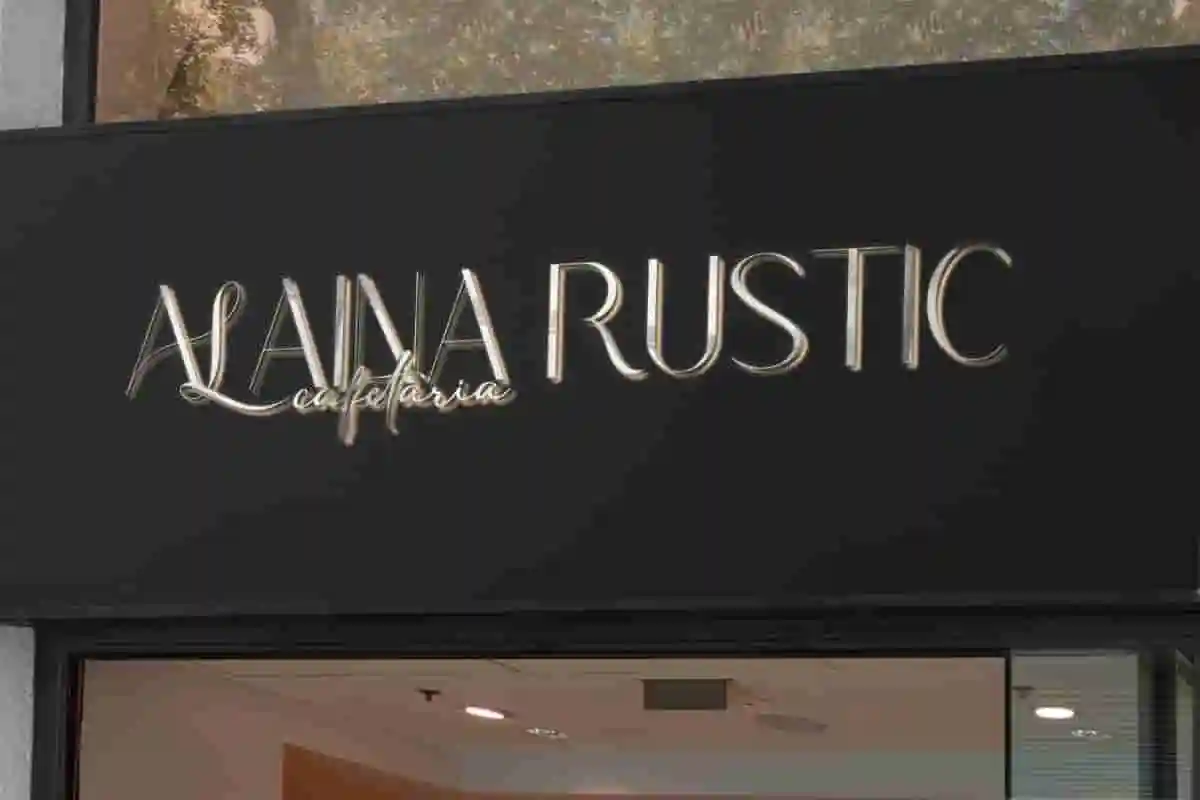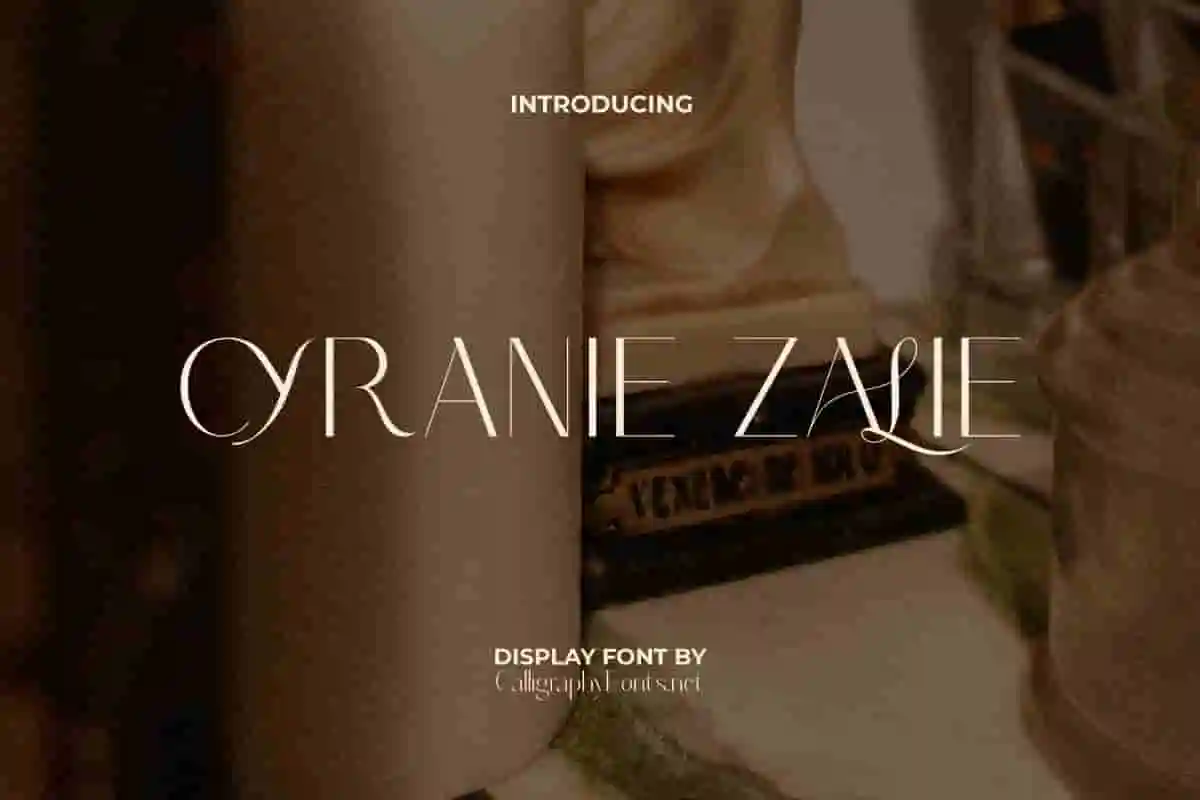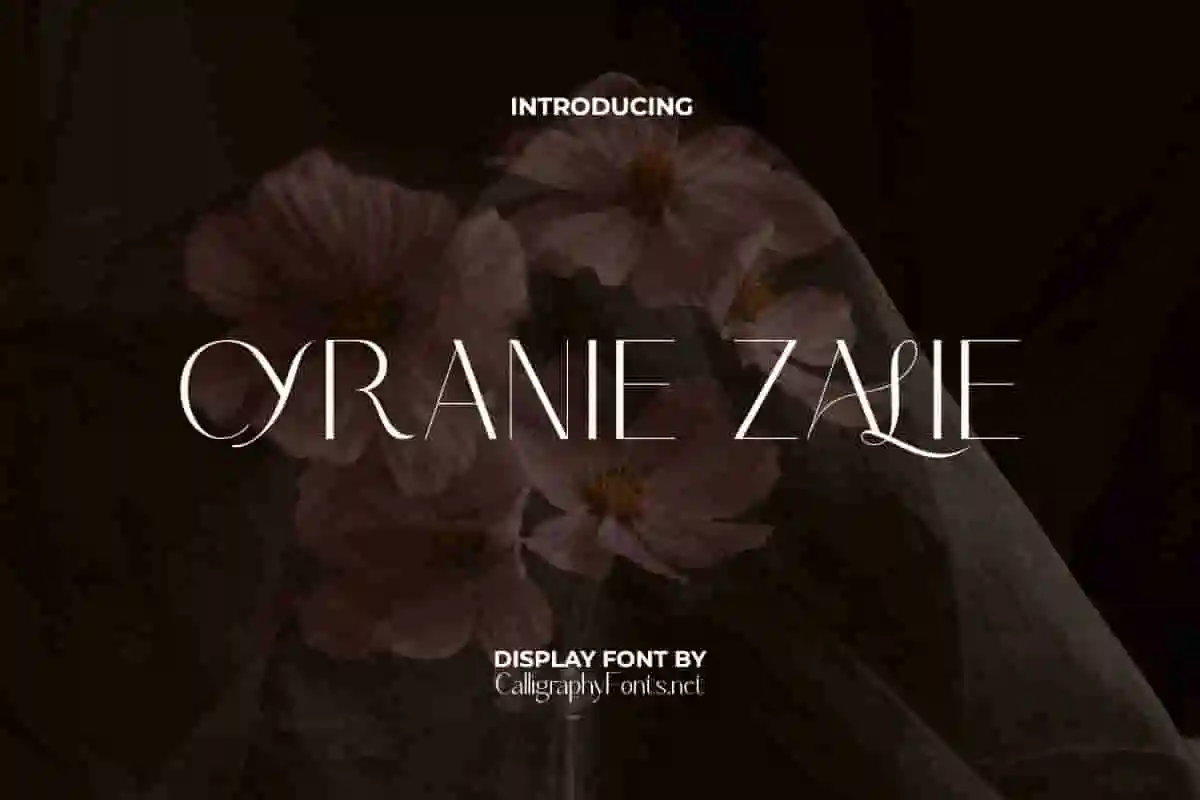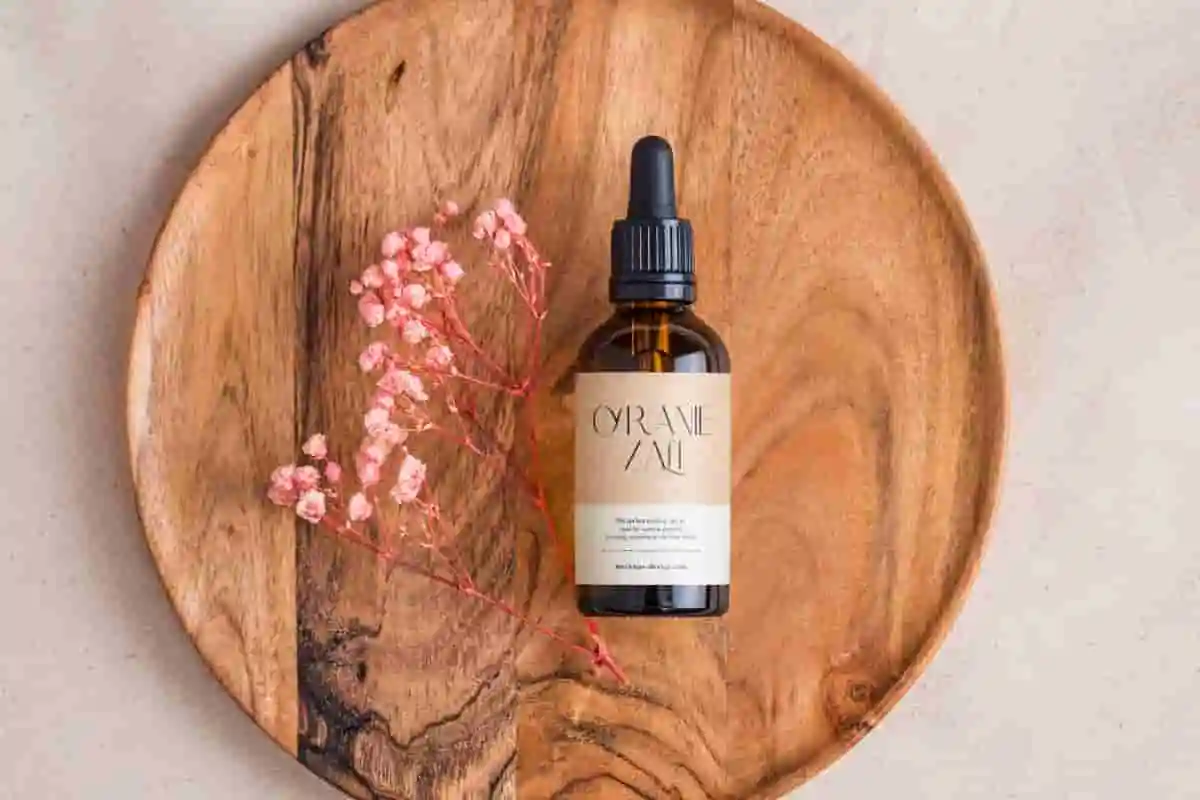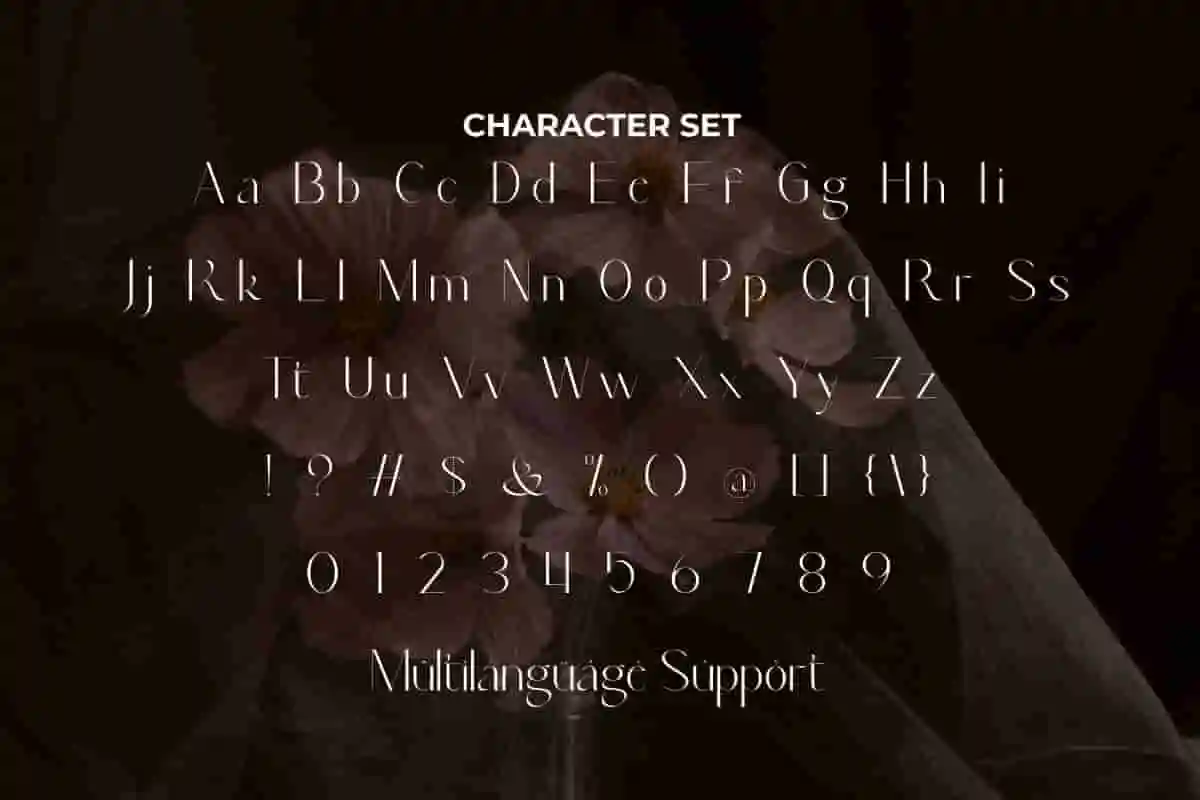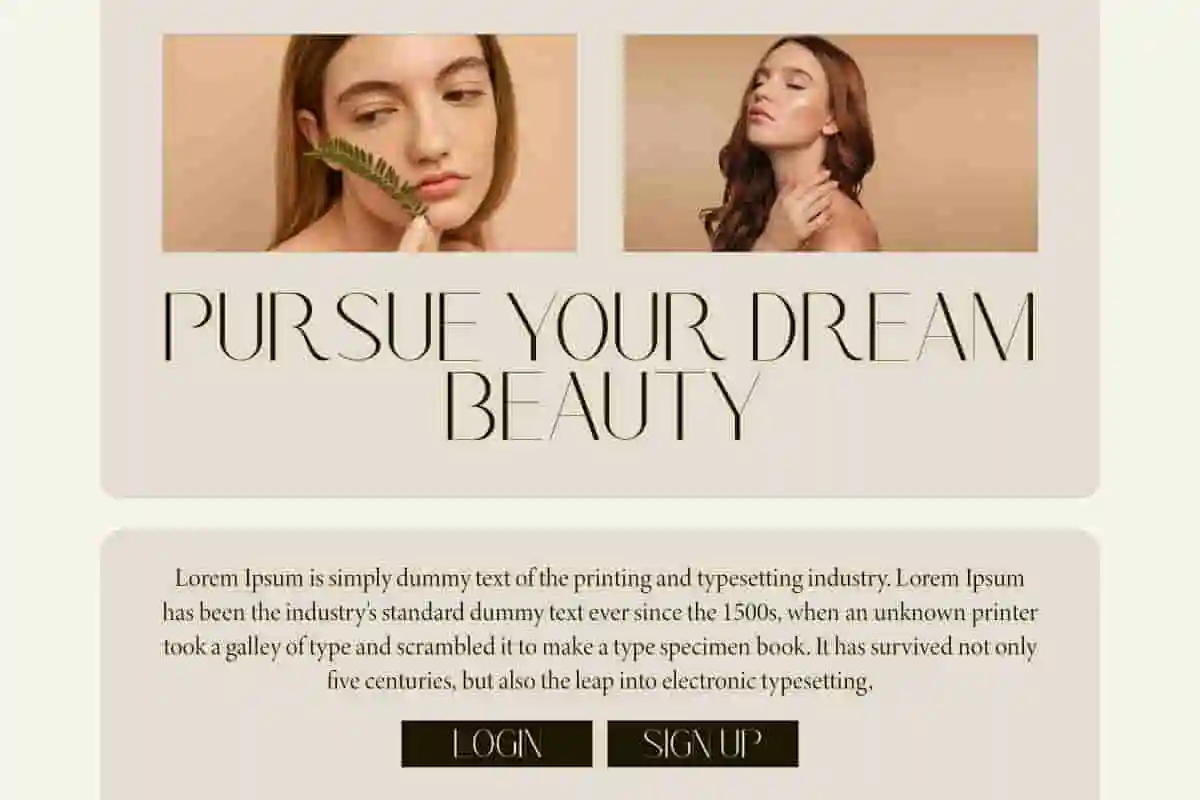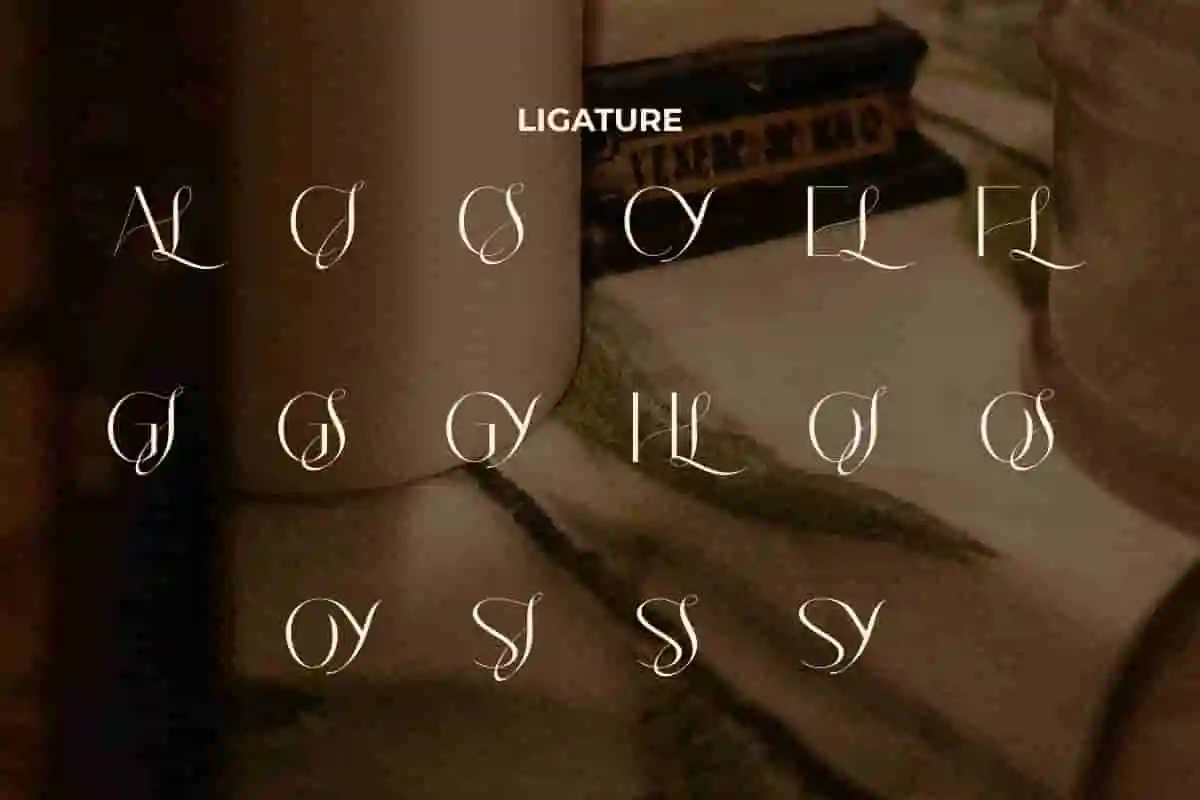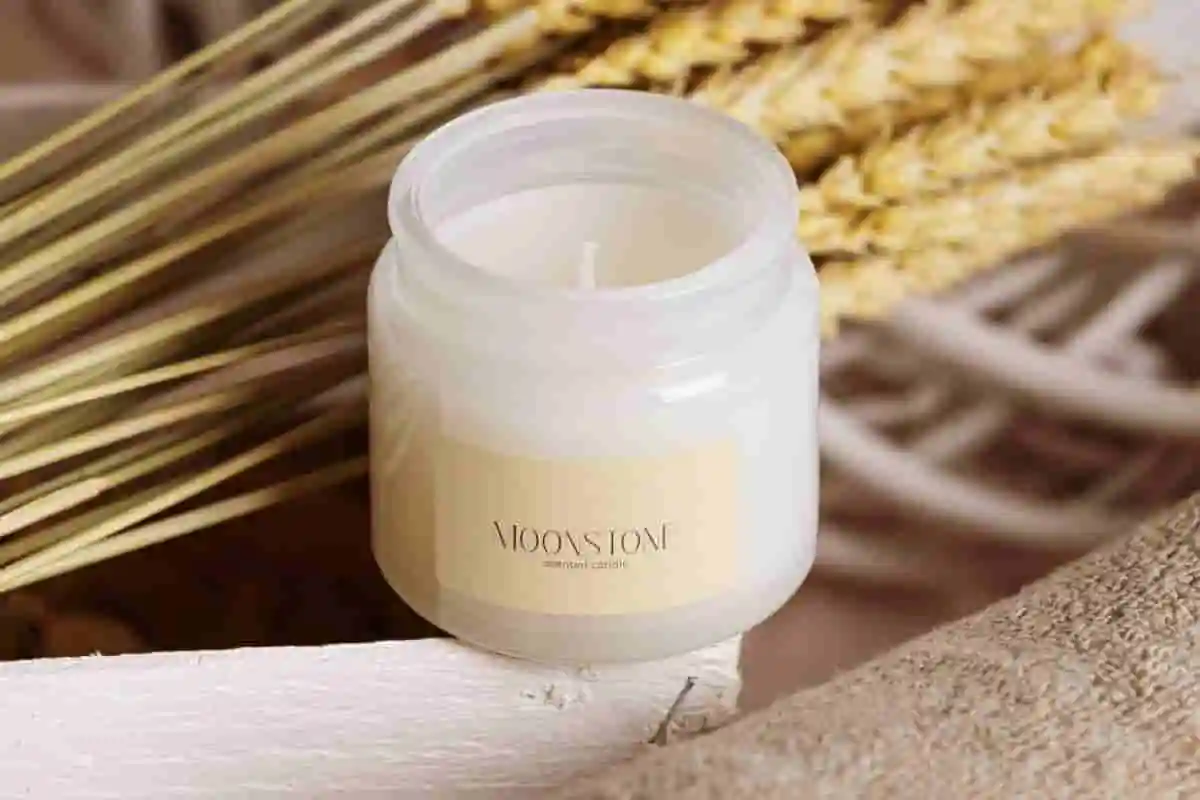
Cyranie Zalie Display Font
Cyranie Zalie Font is a stunning display font with the appeal of beautiful ligatures that help you create endless variations for your creative needs. It is versatile, one of the uses is for brand identity, cosmetic brand, signage, etc.
Cyranie Zalie Font is an elegant display font with beautifully curved ligature harmony. Specially designed in a modern sans serif style with a sense of timeless luxury that is versatile for dabbling in minimalist and sophisticated purposes. This font will be ideal for apps, banners, blogs, brand logo, covers, greeting cards, headers, invitations, labels, mockup, packaging, signage, signboard, stickers, template, titles, websites, and more.
Elevate your creative projects with Cyranie Zalie Display Font, a sophisticated and stylish display typeface designed to bring timeless elegance and bold character to your work. Perfectly crafted with graceful curves and strong serifs, this font is ideal for branding, headlines, packaging, editorial layouts, and more. Whether you’re designing luxury logos, fashion magazines, wedding invitations, or social media graphics, Cyranie Zalie delivers a refined aesthetic that commands attention.
Introducing Cyranie Zalie Display Font, a beautifully crafted serif font designed to add sophistication and impact to your creative projects. With its refined curves, bold serifs, and high contrast, this font is ideal for designers looking to create standout logos, editorial headlines, luxury packaging, and elegant invitations.
Discover Cyranie Zalie Display Font, a stunning display serif typeface crafted to add a sophisticated and commanding presence to your designs. With its bold serifs and sleek curves, this font is perfect for fashion branding, luxury packaging, editorial headlines, wedding invitations, and more. Designed to blend classic elegance with contemporary style, Cyranie Zalie delivers high readability and eye-catching aesthetics.
• Elegant display serif font with modern flair
• Supports multilingual characters
Cyranie Zalie Font will be ready to add value to your brand in terms of sophistication as the premium letterforms such as the fineness of the lines or the sleek curves make it a perfect choice for classy brands hence enhancing the visual identity. Perfect for beauty product, boutique, coffee shop, cosmetologist, digital marketing, fashion, florist, home furniture, photography, publisher, restaurants, spa salon, and more.